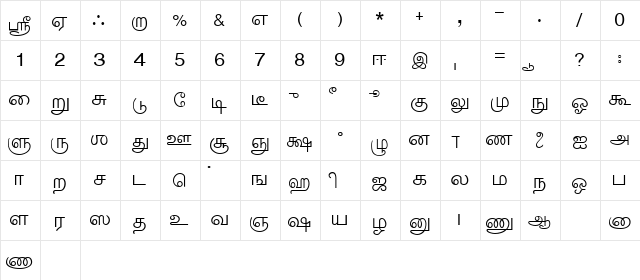
MylaiOssai Regular Font Preview
MylaiOssai Regular
Design Context for MylaiOssai Typeface
MylaiOssai offers clean, dependable letterforms without strong stylistic allegiance, making it a practical choice for designers who need flexibility.